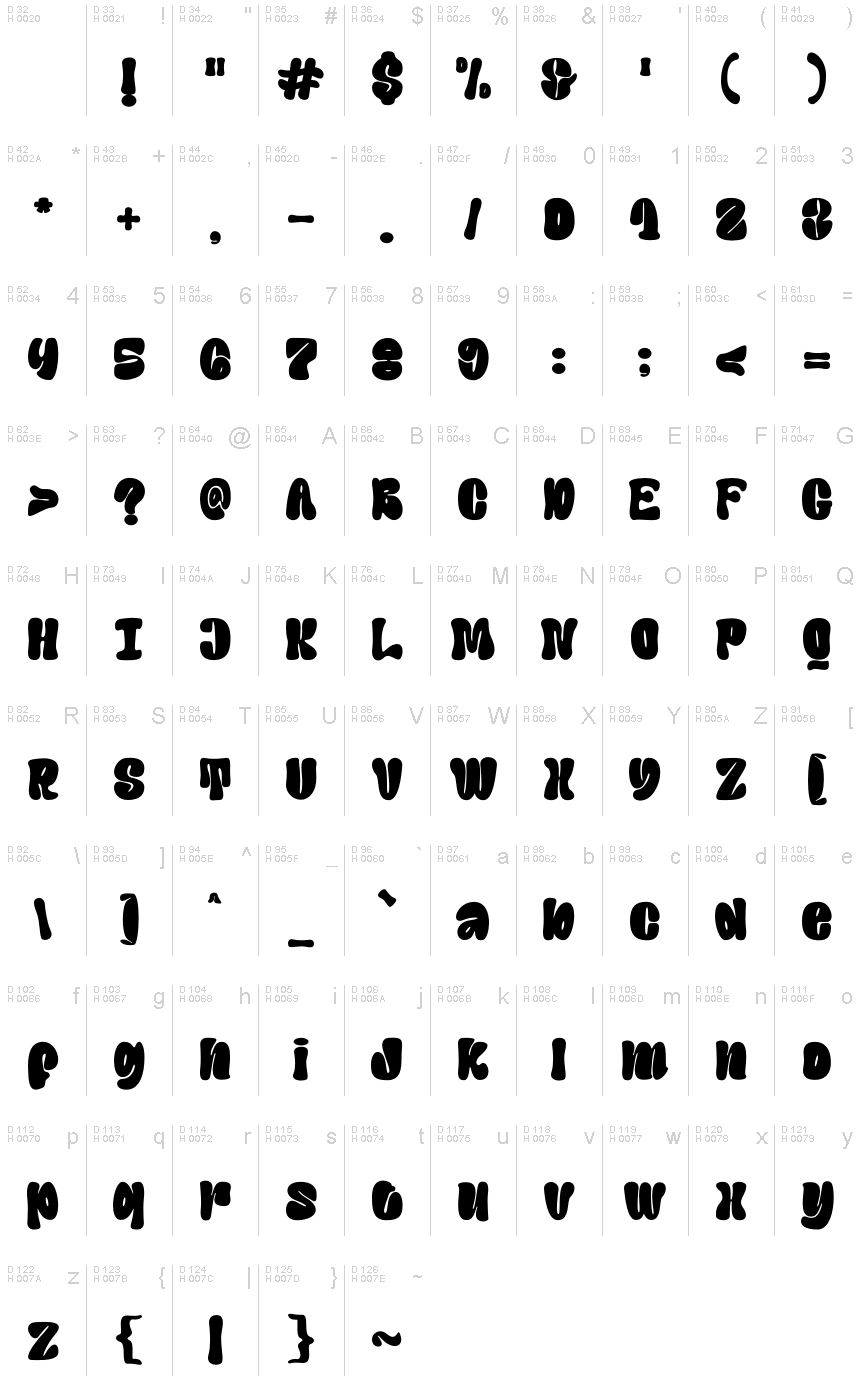
Santup font by Jadatype has everything it needs to lighten up your day. It is groovy, energetic, and has the casual mood of a handwritten font. Its bold weighted structure is combined with organic glyph forms that give it a whole other retro vibe–not to mention its interesting rounded form shapes.